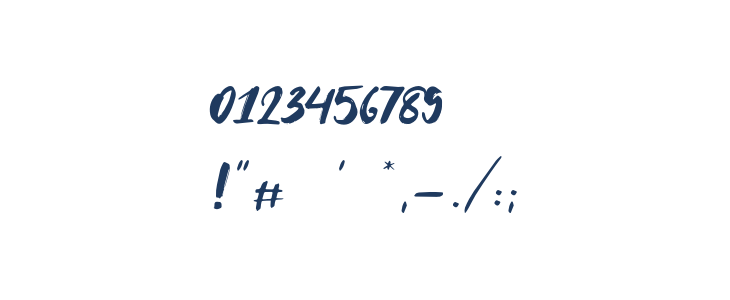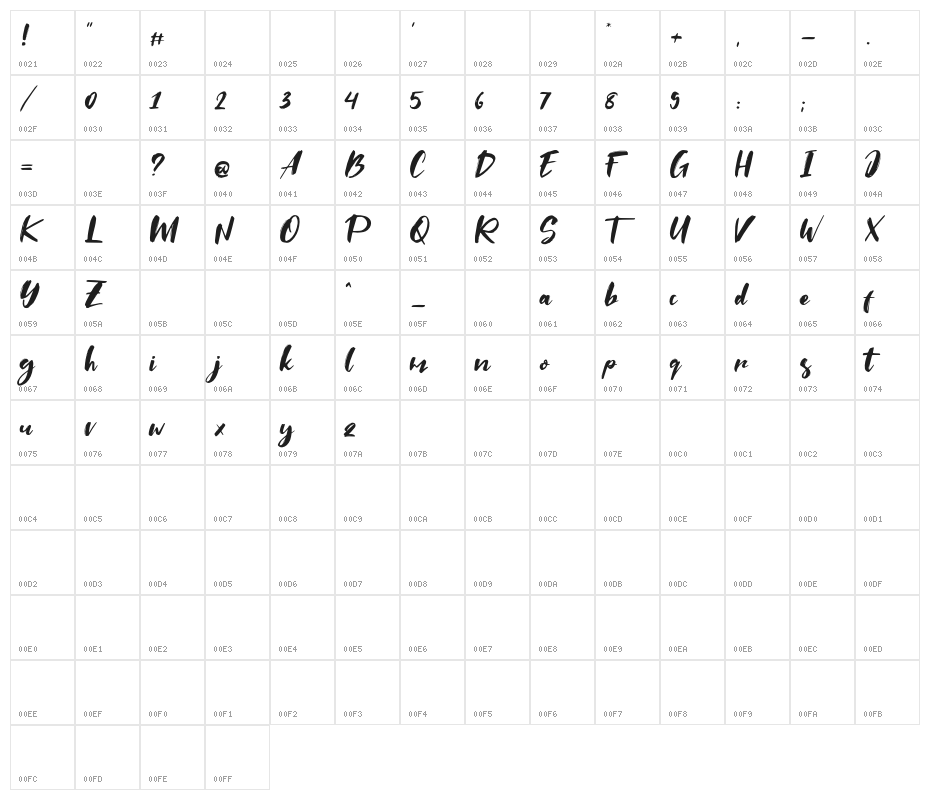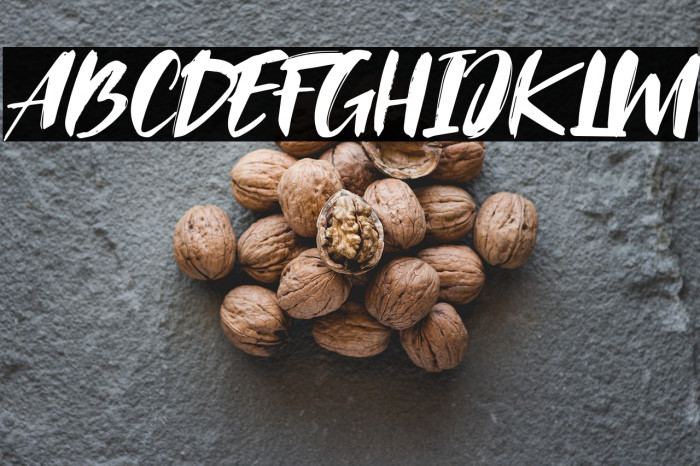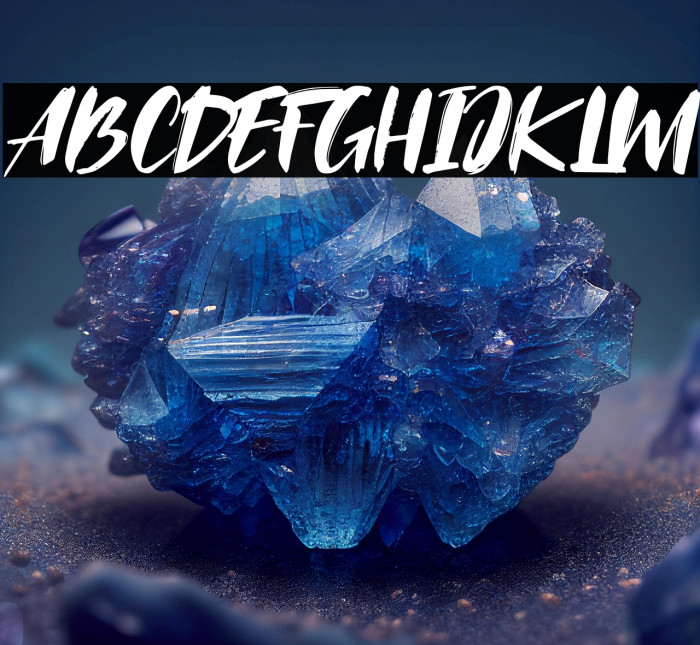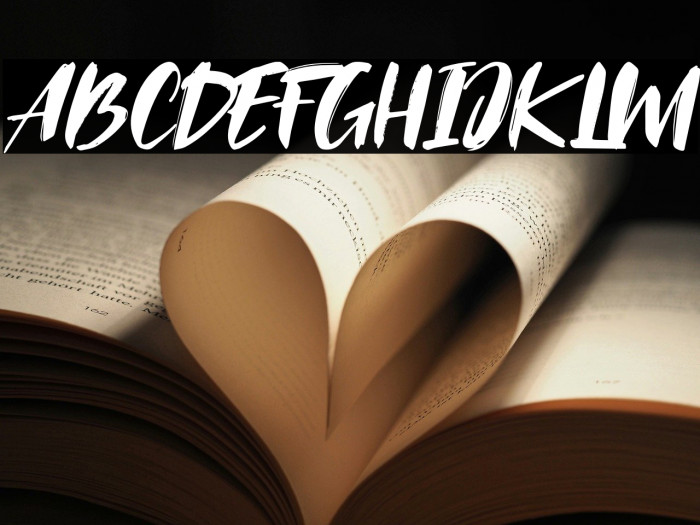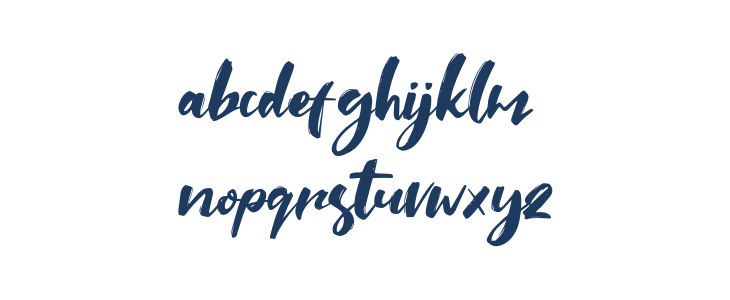
Saltino Font
This font exhibits a dynamic and energetic style, characterized by its bold, brush-like strokes that convey a sense of movement and fluidity. The uppercase letters are particularly striking, with their sweeping curves and sharp angles, while the lowercase letters maintain a consistent flow, enhancing readability. The numbers and special characters are crafted with the same attention to detail, ensuring a cohesive look across all elements. The font's overall appearance is both modern and artistic, making it suitable for creative projects that require a touch of flair and personality.
| Use Case | Logos, Headlines, Posters |
| Proposed Projects | Ideal for branding, posters, invitations, and any project that benefits from a bold, artistic touch. |